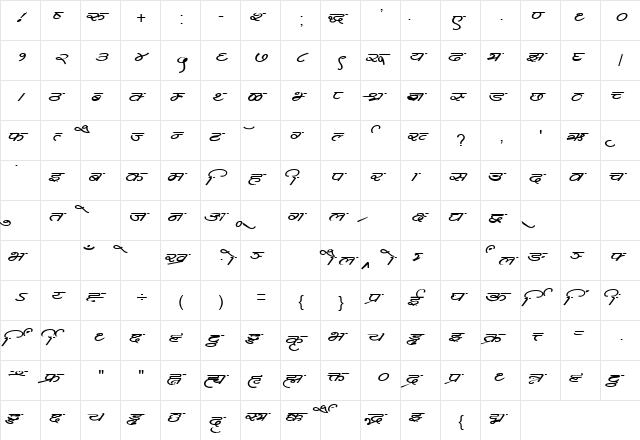
Kruti Dev 365 Regular
Design Context for Kruti Dev 365 Typeface
Kruti Dev 365 offers clean, dependable letterforms without strong stylistic allegiance, making it a practical choice for designers who need flexibility.